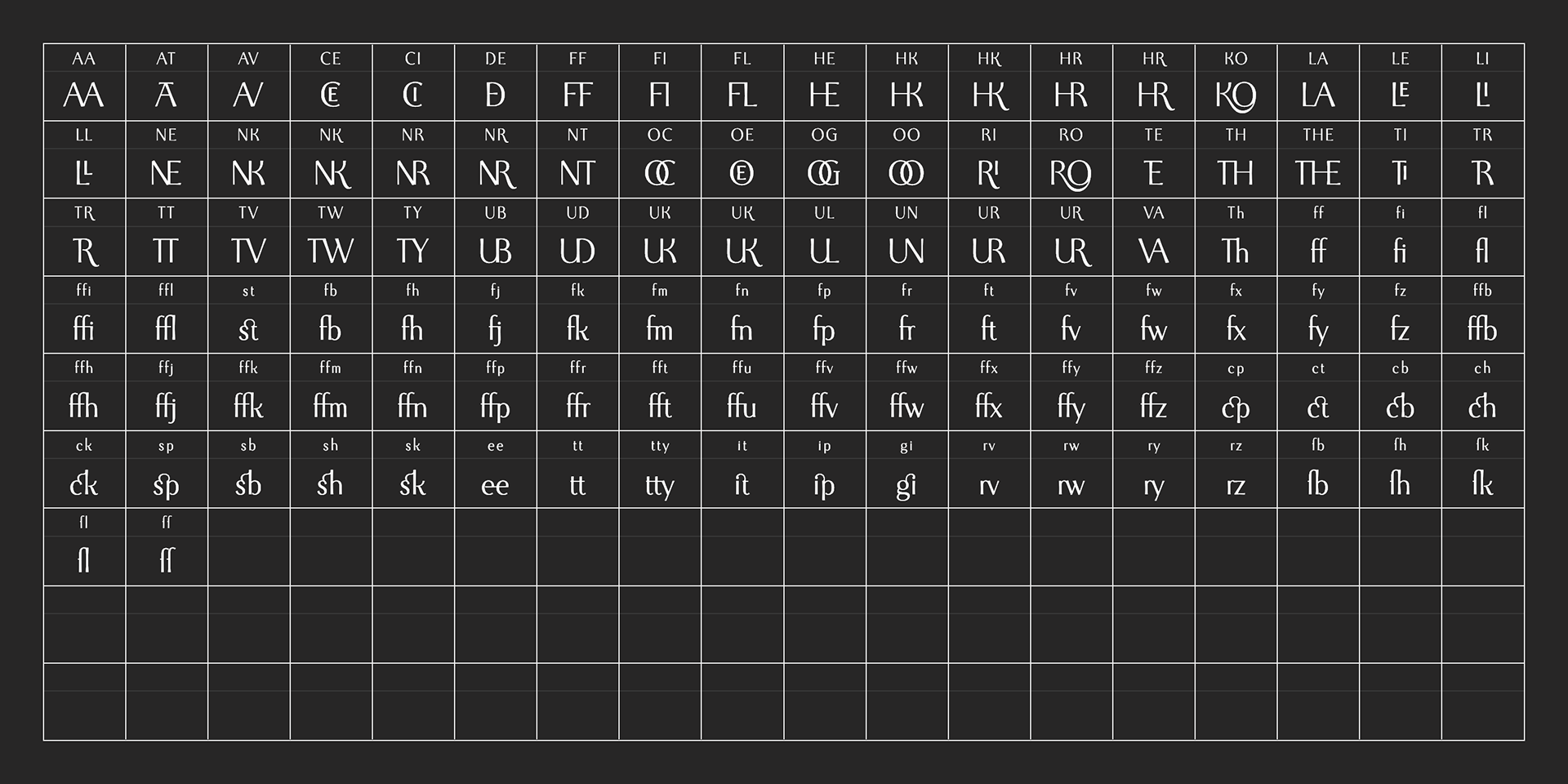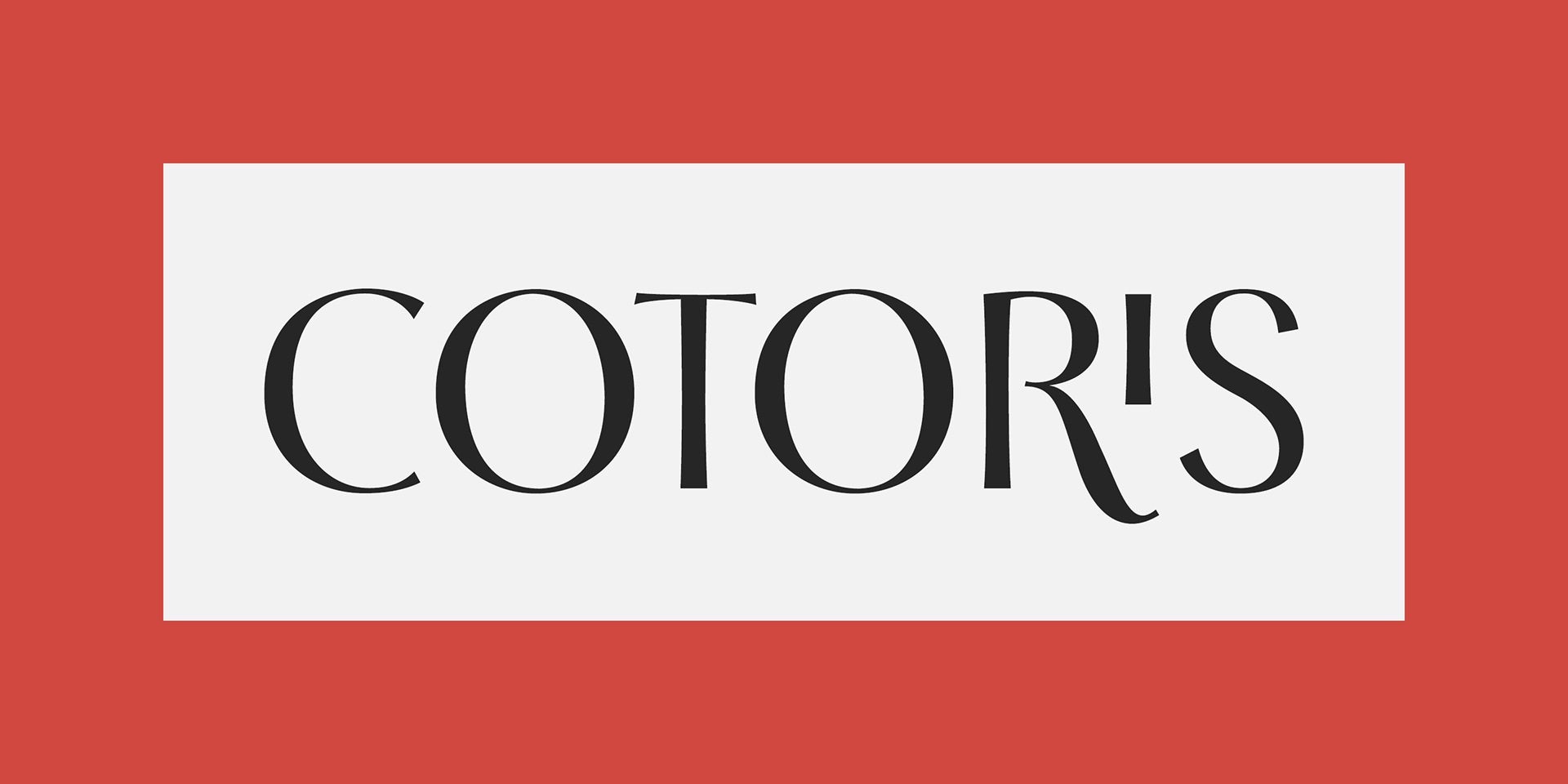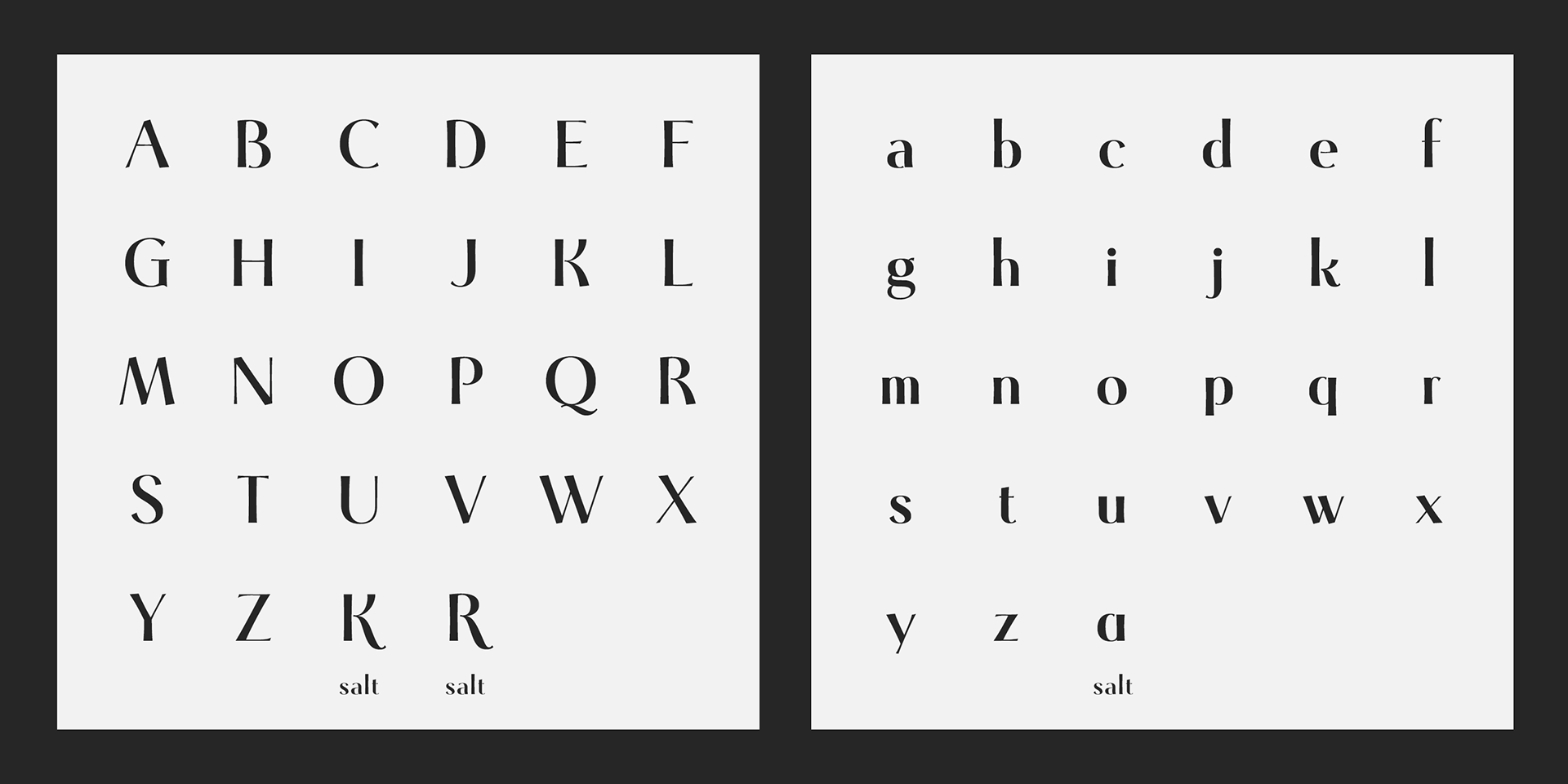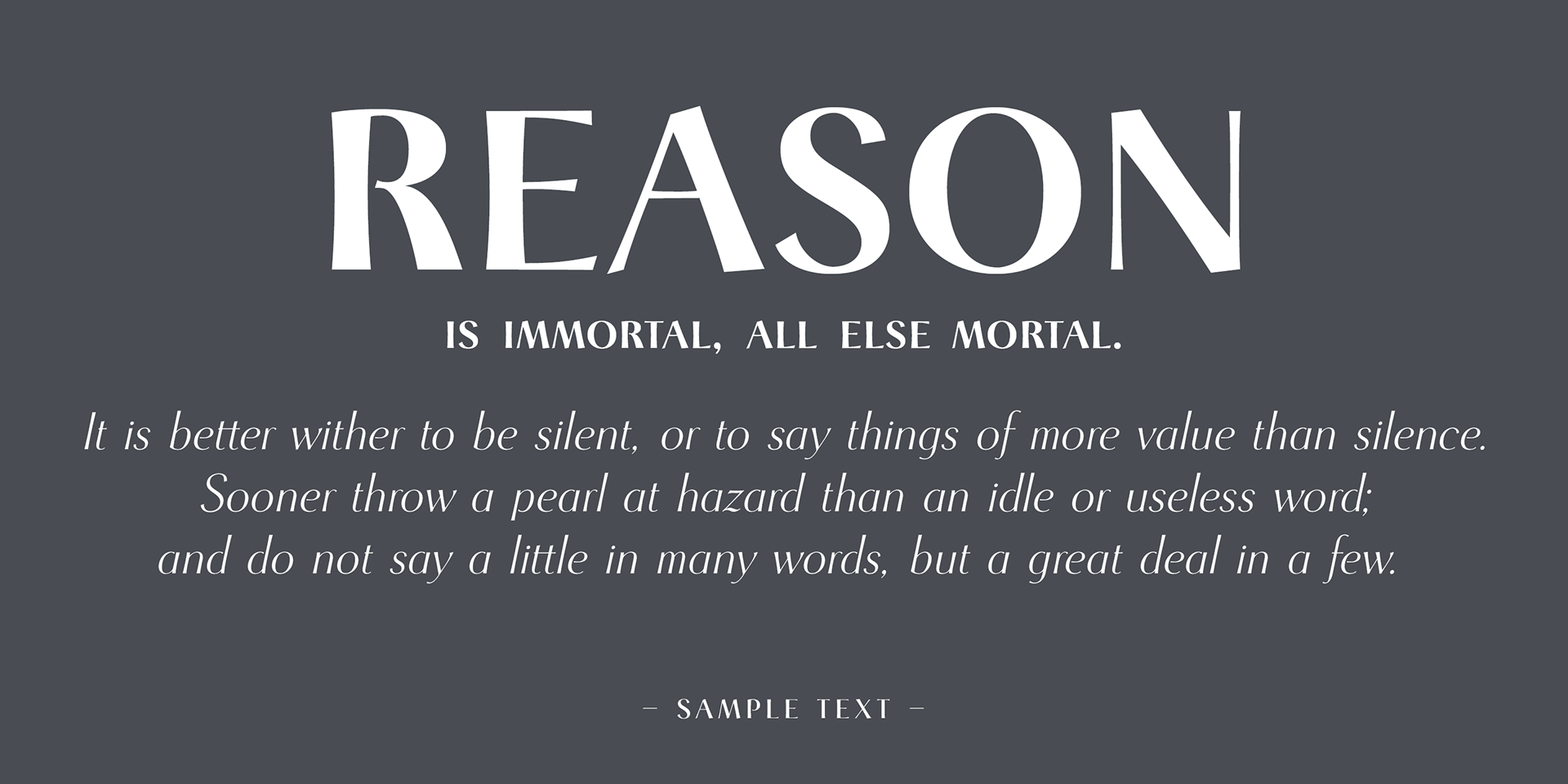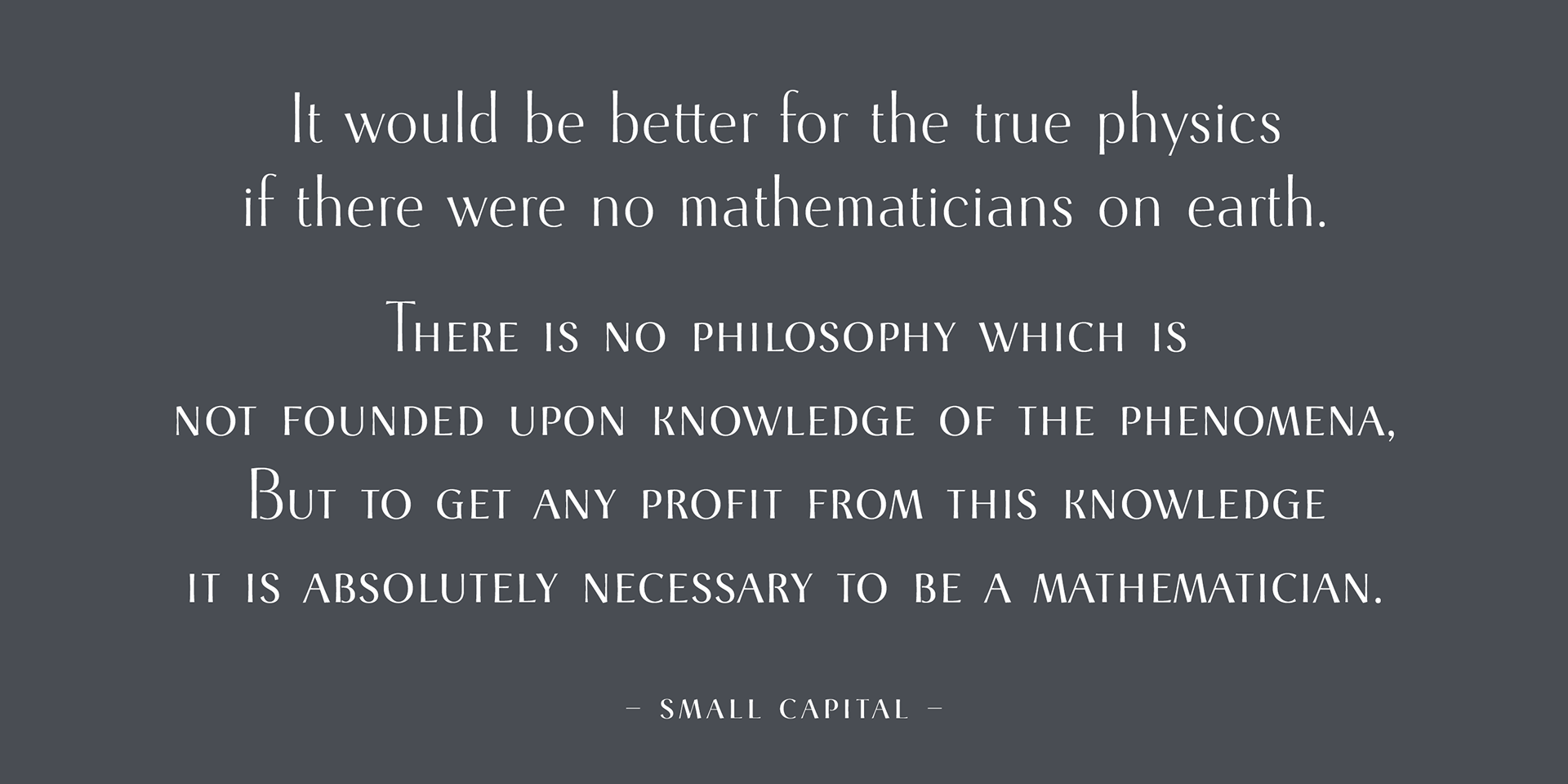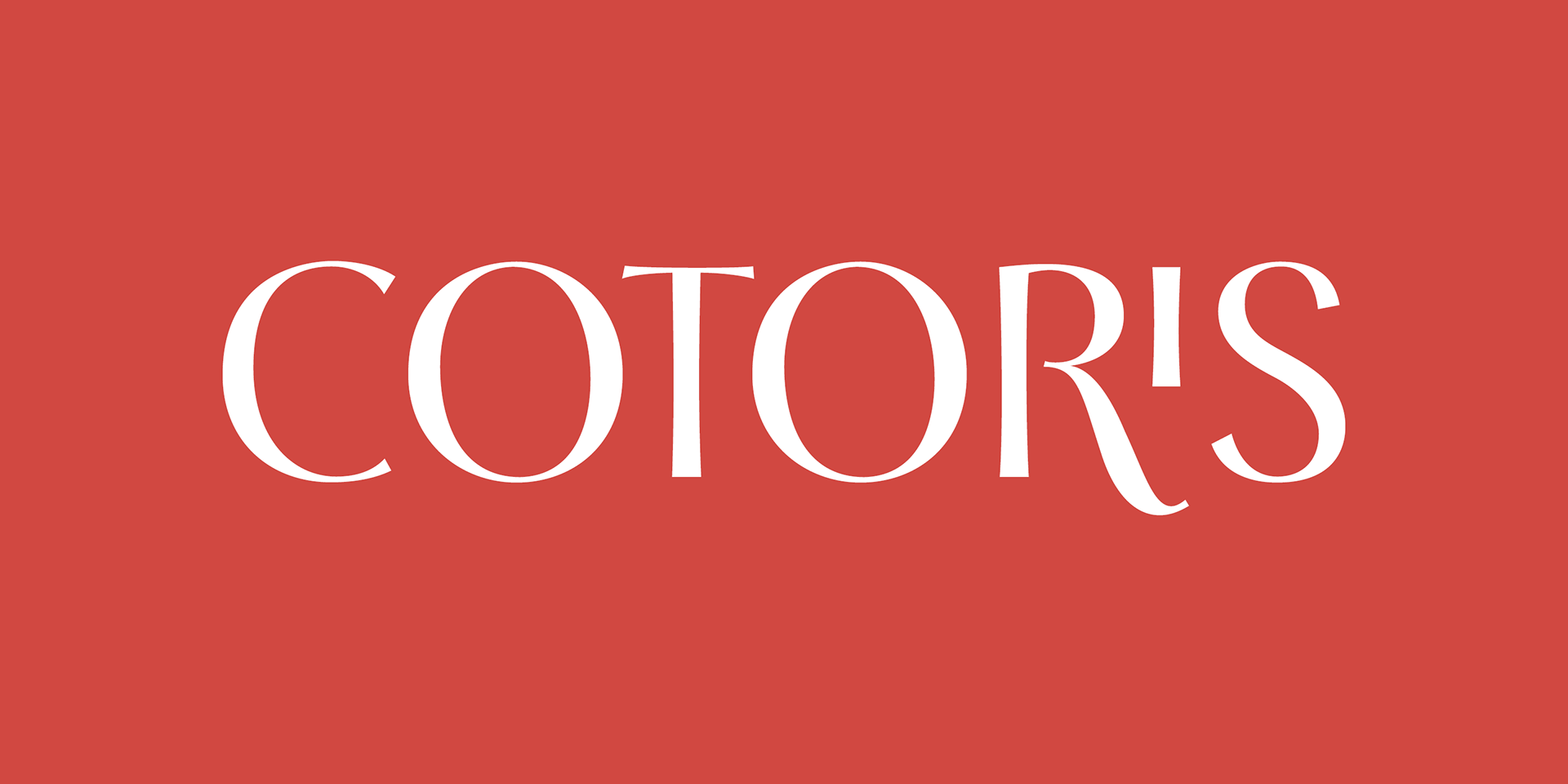
Cotoris
Cotoris is a beautiful glyphic sans serif designed with elegance and sophistication in mind.
It includes ligatures and small caps, offering rich typographic features for advanced design work.
Ideal for projects that call for a graceful, feminine touch, Cotoris was recognized as a Rising Star on MyFonts in June 2007.